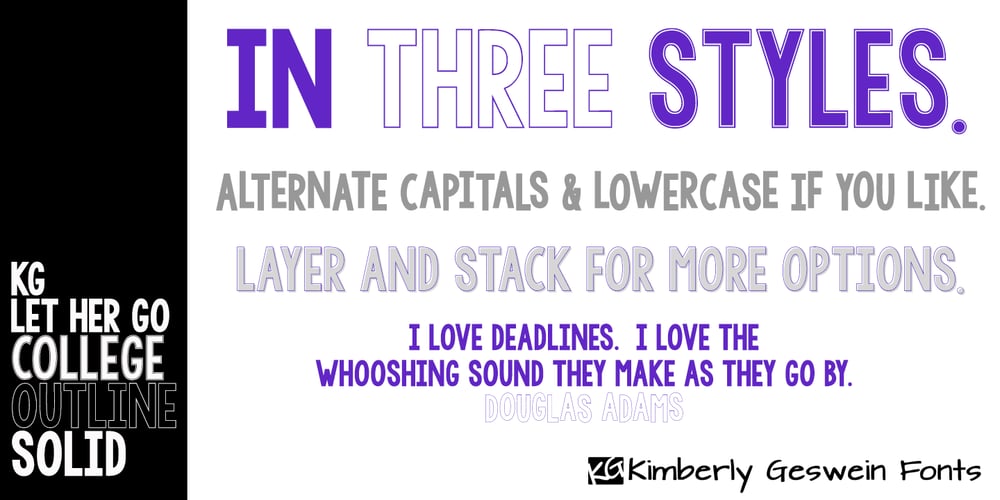
KG LET HER GO Font Family was designed by Kimberly Geswein and published by Kimberly Geswein. KG LET HER GO contains 3 styles and family package options. Tall, chunky title-friendly sans serif capitals in 3 styles. Use all caps for even lettering or alternate caps and lowercase for bouncy lettering.